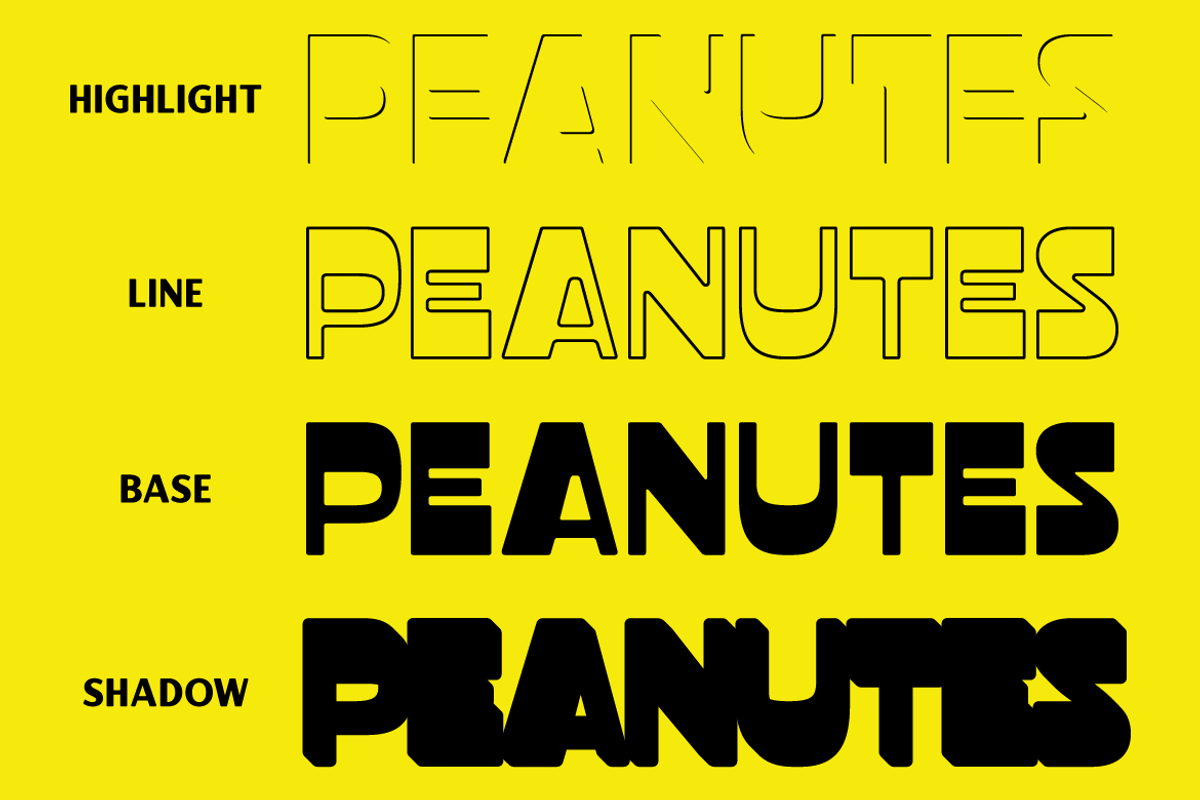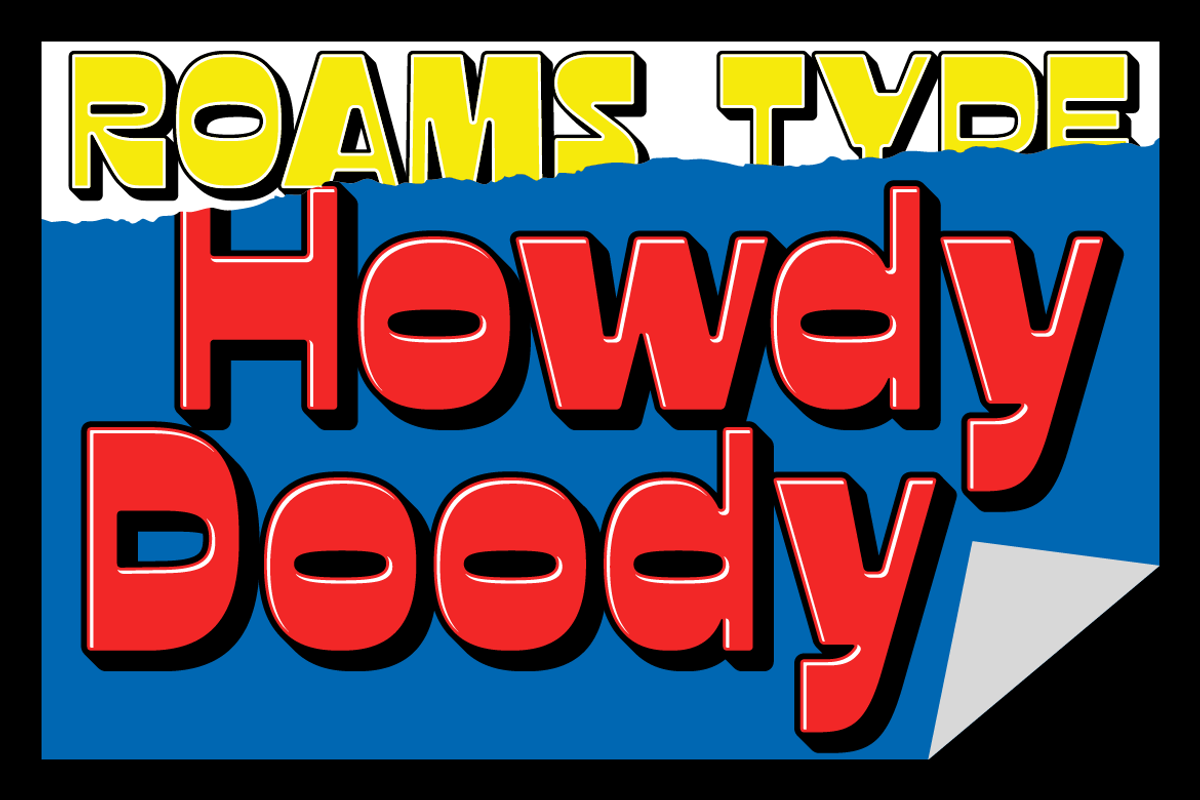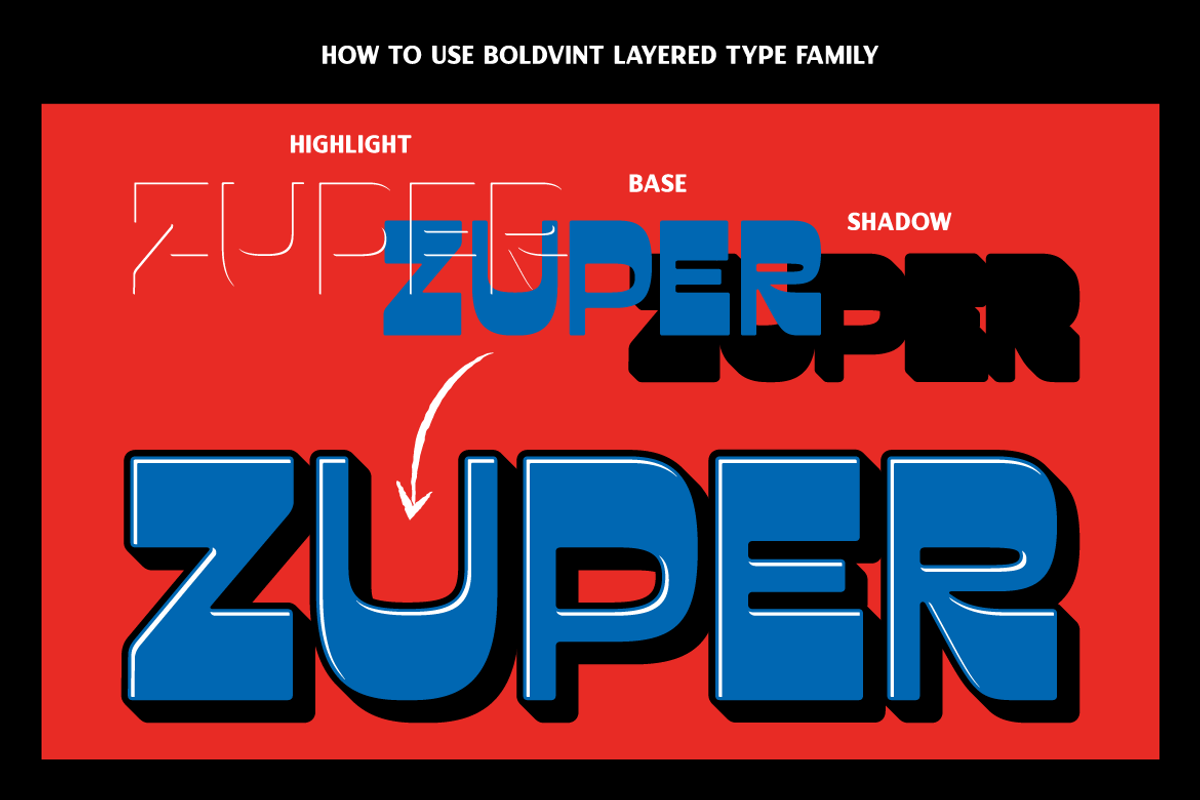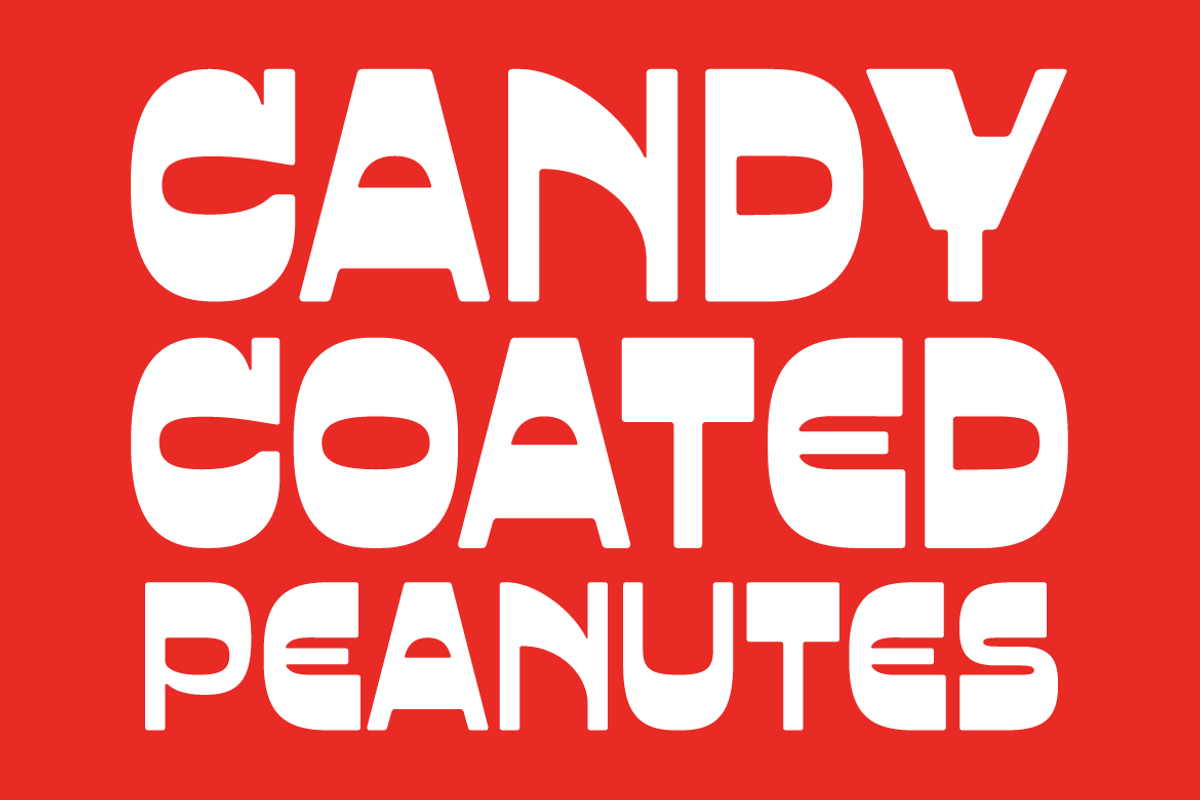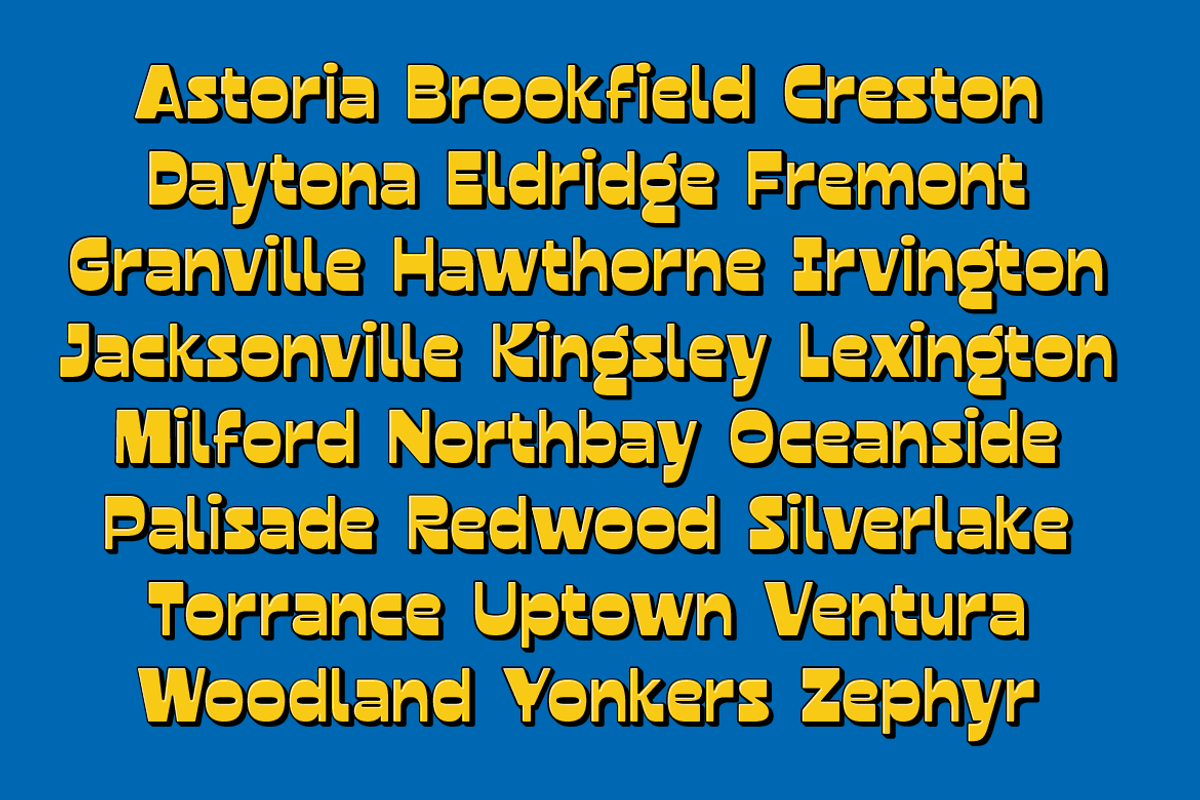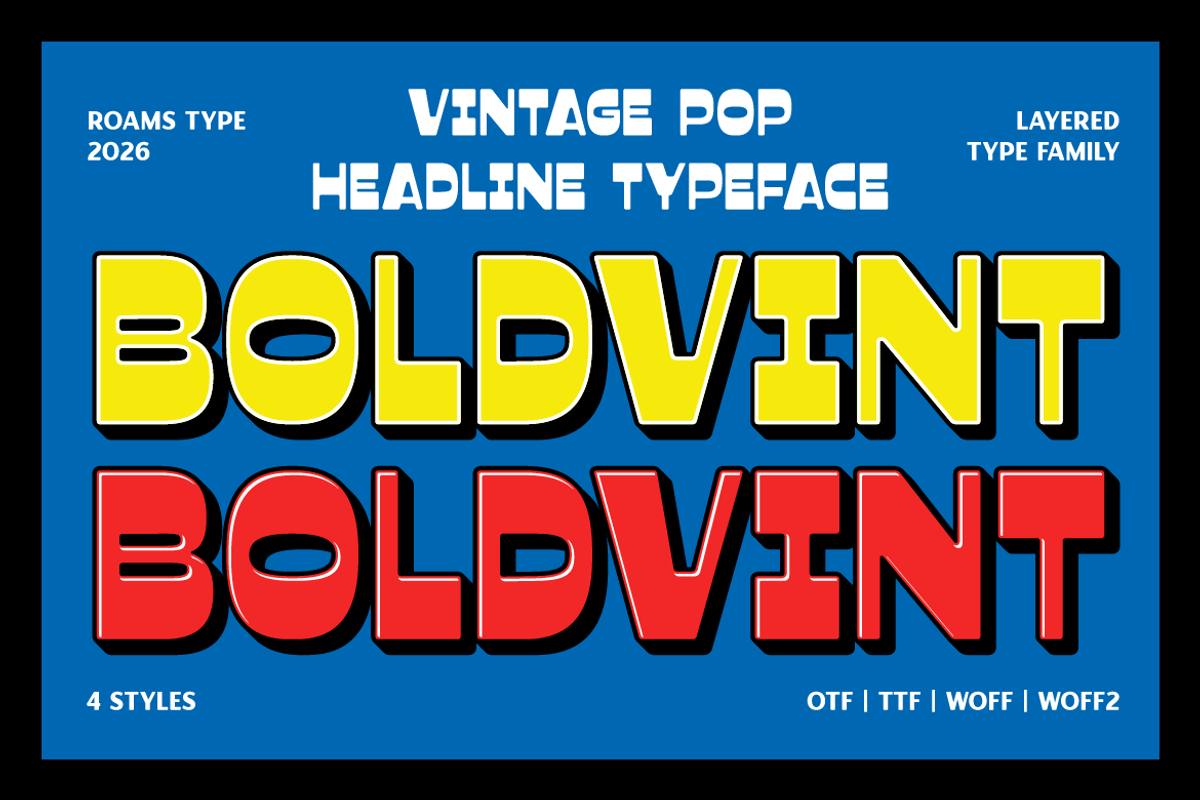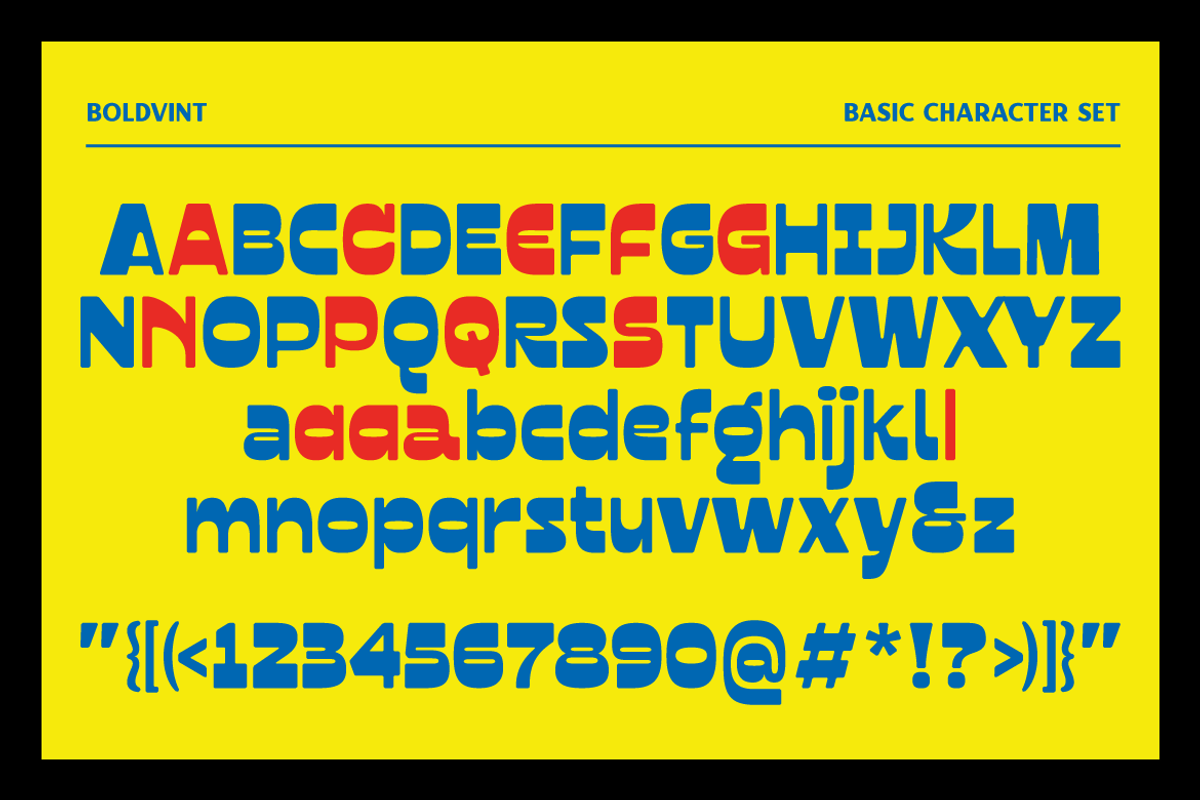
Boldvint - Vintage Pop Headline Type
BOLDVINT is a bold display font designed to bring strong character, playful attitude, and retro energy into your designs. Built with chunky letterforms and confident proportions.
Inspired by classic retro signage, old-school posters, sticker culture, and vintage commercial typography, this font delivers a timeless yet expressive look. Its solid weight and friendly curves make it highly legible while still maintaining a distinctive visual personality.
- Stylistic Set